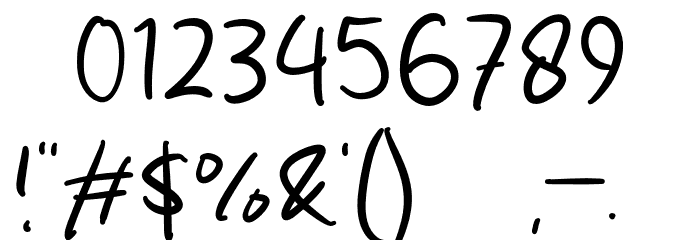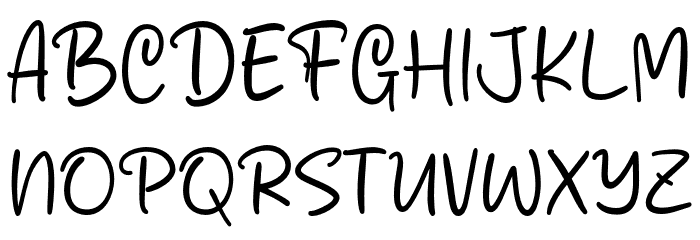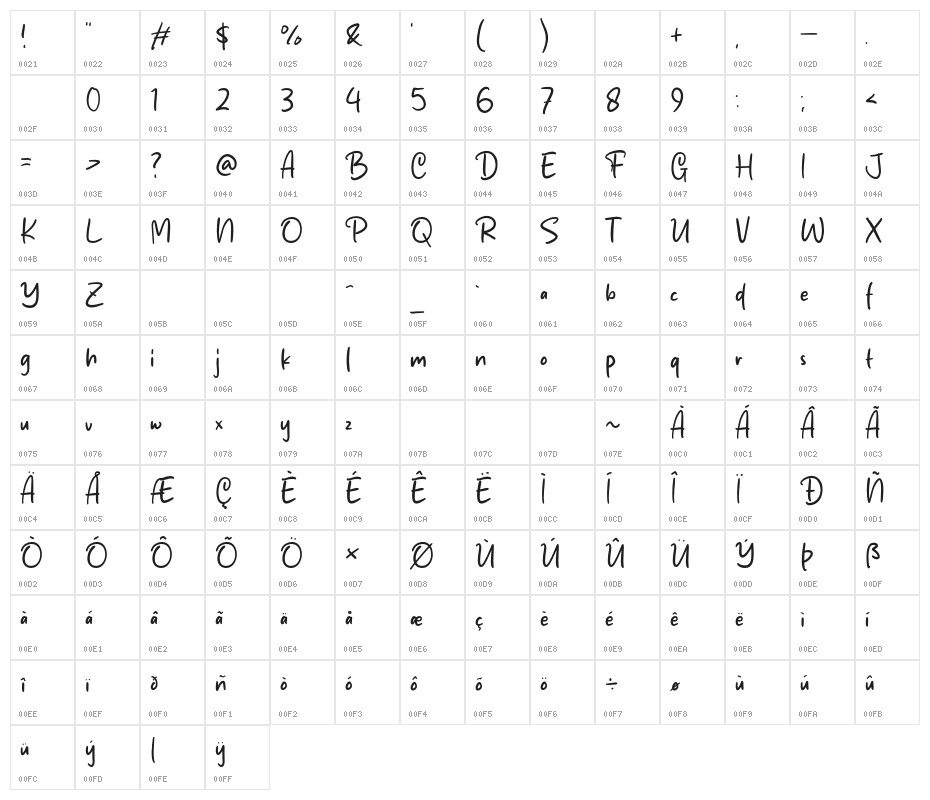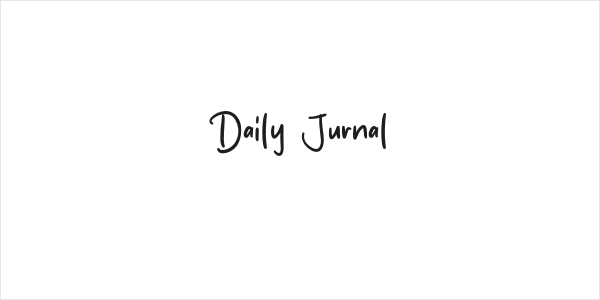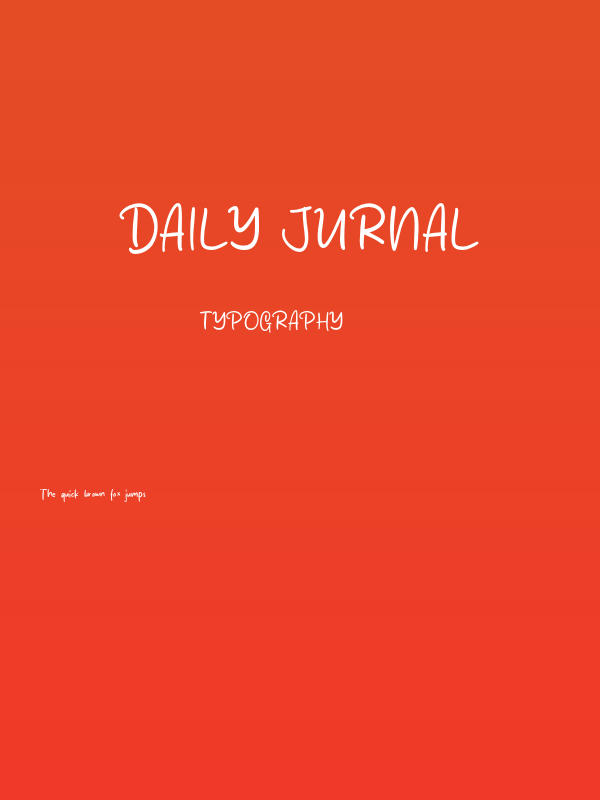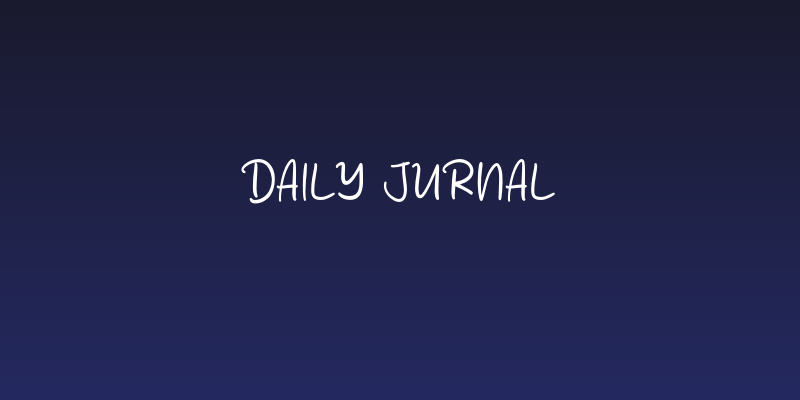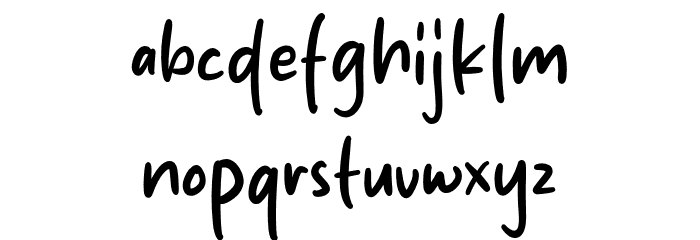
Daily Jurnal Font
Daily Jurnal Description
A casual, handwritten style font with rounded, playful letterforms and consistent stroke width, evoking a personal and informal feel. The characters are slightly irregular, enhancing the handwritten effect, and the numerals and punctuation match the relaxed aesthetic.
| Overall Style | Casual, Playful, Handwritten |
| Use Case | Personal notes, Invitations, Informal headlines, Social media posts |
| Proposed Projects | Personal journals, greeting cards, social media graphics, children's books, informal branding. |